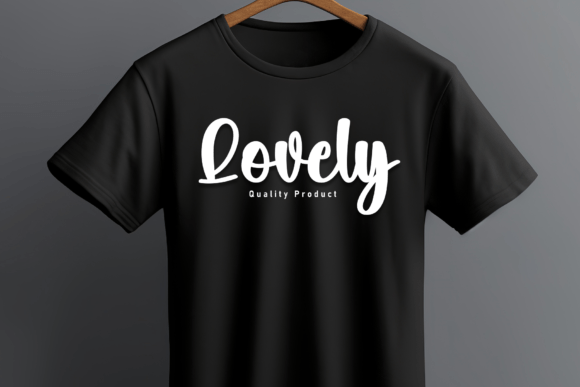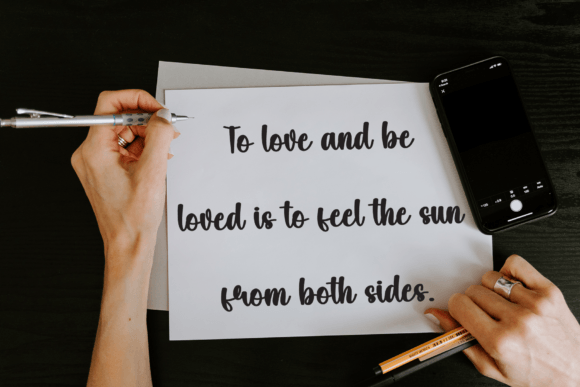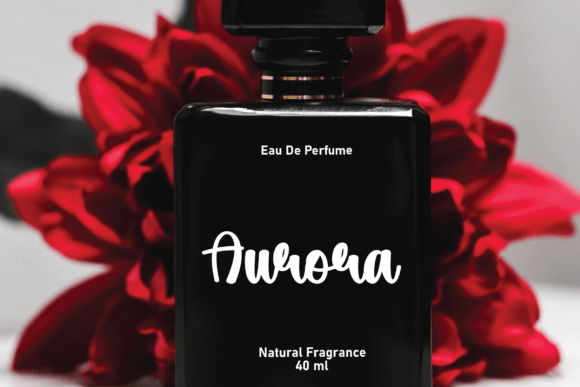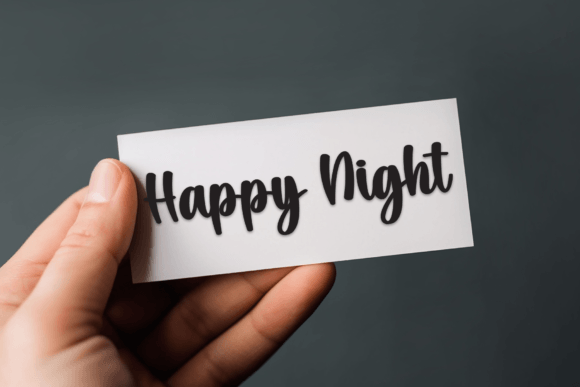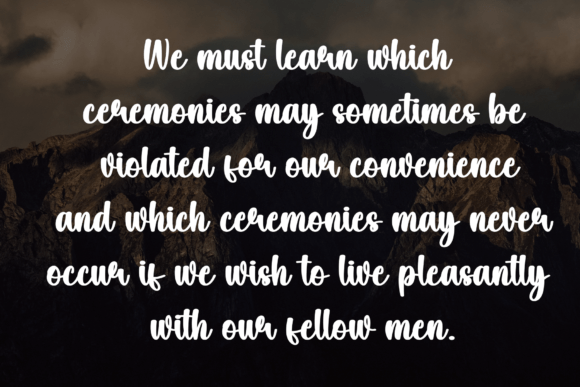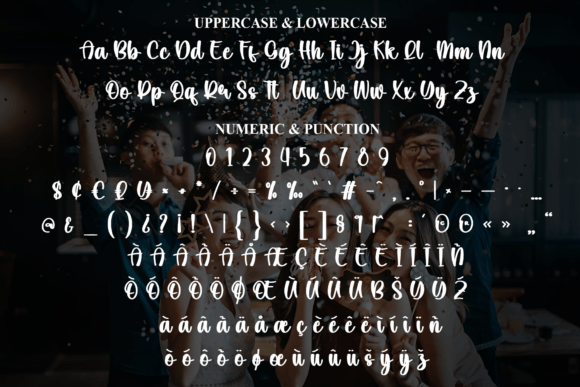
Introduction to Lucky Party Font
Remember the moment when you stumbled upon the perfect design element for your creative project? The one that took it from ordinary to extraordinary? That’s exactly what I’m about to share with you – a secret to elevate your designs to the next level.
Introducing the Lucky Party Font, a delightful, handwritten font that’s sure to bring a smile to your face. This charming font is perfect for designers who want to add a friendly touch to their projects, making it an invaluable resource for anyone looking to create high-quality, engaging content.
Whether you’re working on a design project that requires a unique, playful feel or simply want to add a personal touch to your digital creations, the Lucky Party Font is an excellent choice. With its transparent background and free download option, it’s an accessible design resource that’s sure to become a staple in your creative toolkit.
Key Features of Lucky Party Font
- High-quality design resource suitable for creative projects, including invitations, party decorations, and more.
- Features a transparent background, making it easy to customize and integrate with any design.
- Comes in a range of sizes and resolutions, including 300 DPI and 600 DPI options.
- Unique, playful style that’s perfect for adding a touch of whimsy to any design project.
- Designed to be highly legible and easy to read, even at small font sizes.
- Perfect for designers, artists, and crafters looking for a high-quality, free design resource.
Honest Review: Lucky Party Font
I recently had the chance to work with the Lucky Party Font, and I must say it’s been a delightful addition to my design projects. The font is perfect for creating a playful and festive atmosphere, making it ideal for events and celebrations.
What works well: ✨ The Lucky Party Font comes with a transparent background, making it easy to layer with other design elements. It’s also a high-quality font that can be used for both digital and print projects. The font is available for free download, which is a major plus for designers on a budget.
Here are some of the features that I appreciate about this font:
- Playful and modern design aesthetic
- Highly customizable for various design projects
- Works well with a wide range of colors and design elements
However, I do have a few limitations to note: ⚠️ The font may not be suitable for formal or professional projects, as it’s more geared towards creative and playful designs. Additionally, the font’s bold and playful style may not be suitable for designs that require a more subtle or understated approach.
Overall, I’m really impressed with the Lucky Party Font. It’s a great design resource that can add a lot of personality to your creative projects. With its high-quality design and transparent background, it’s definitely worth considering for your next design project.
Common Use Cases for the Lucky Party Font
The Lucky Party Font is perfect for a variety of creative projects, including party invitations, social media graphics, and marketing materials. Its high-quality design and transparent background make it a versatile design resource that can be used in a range of applications.